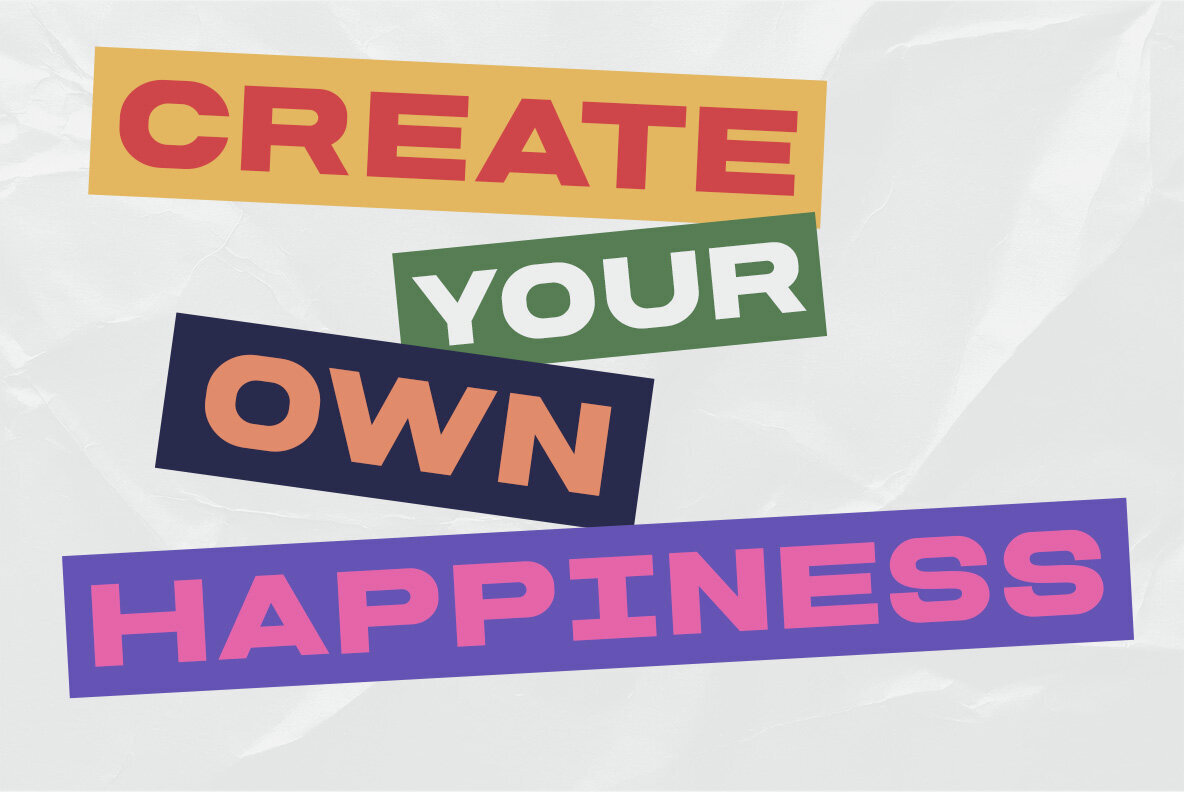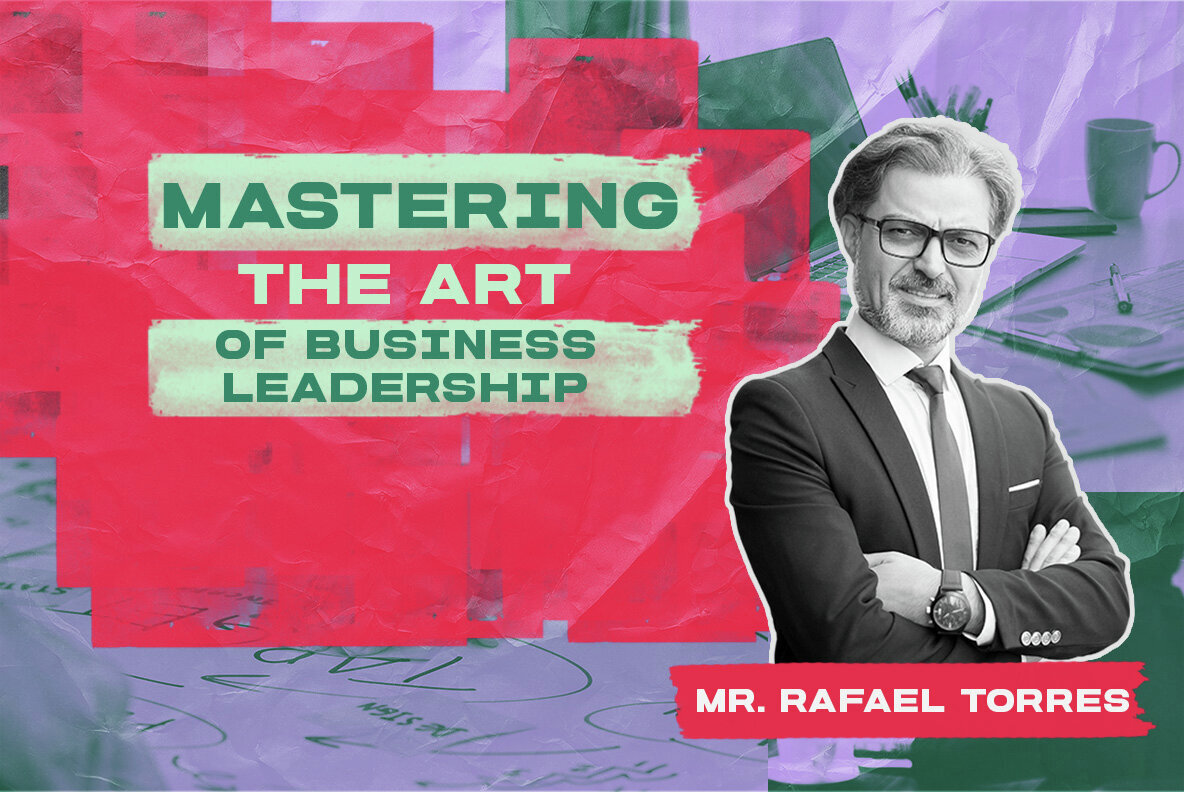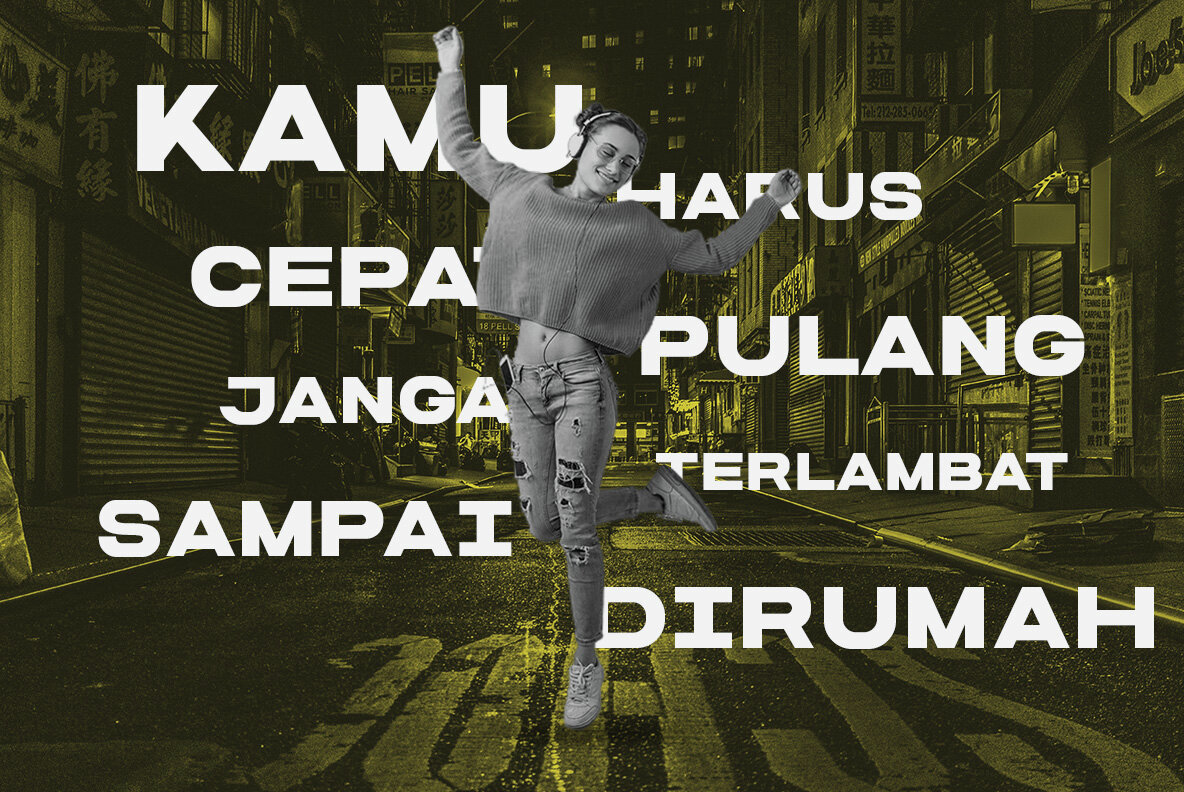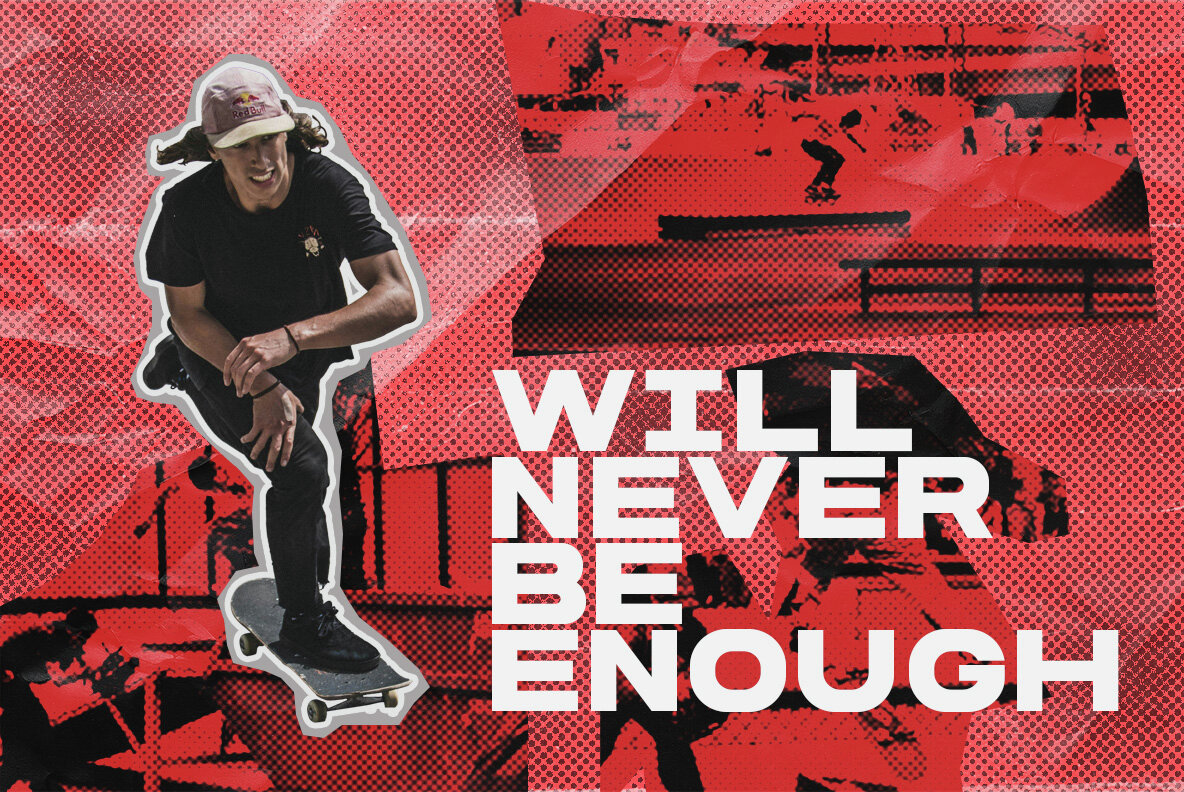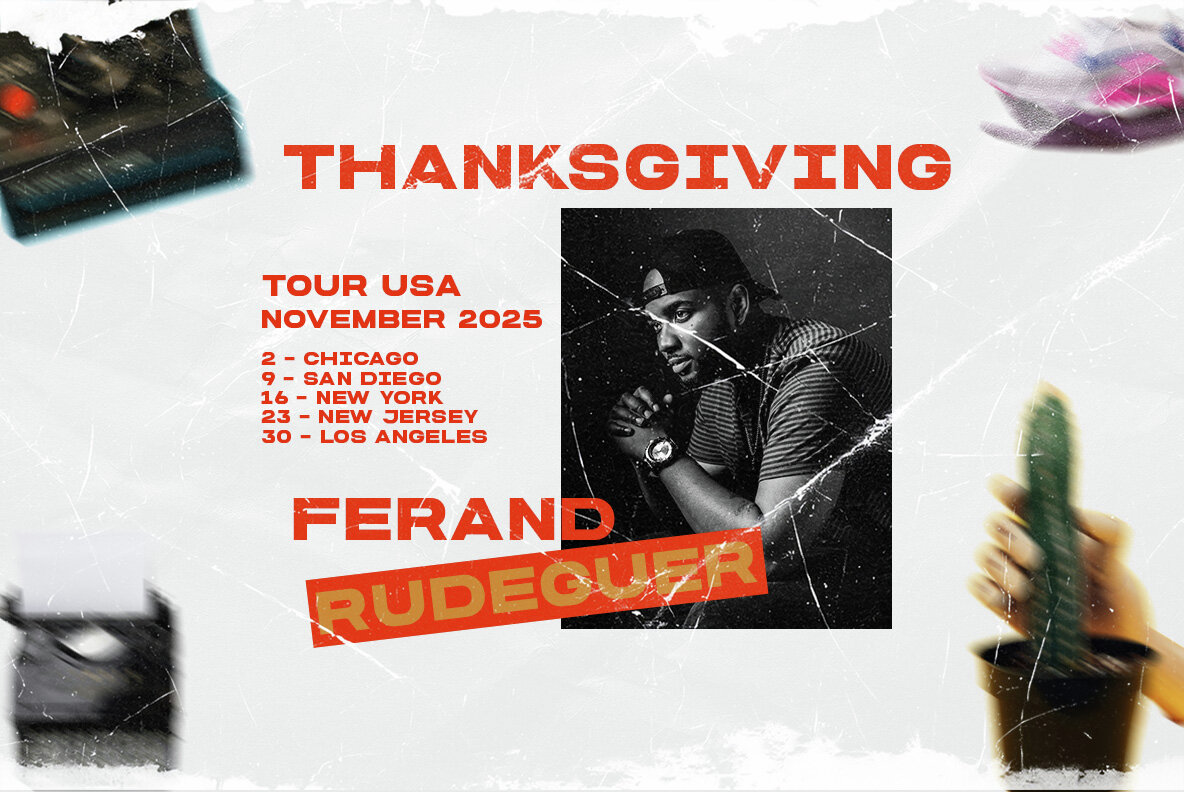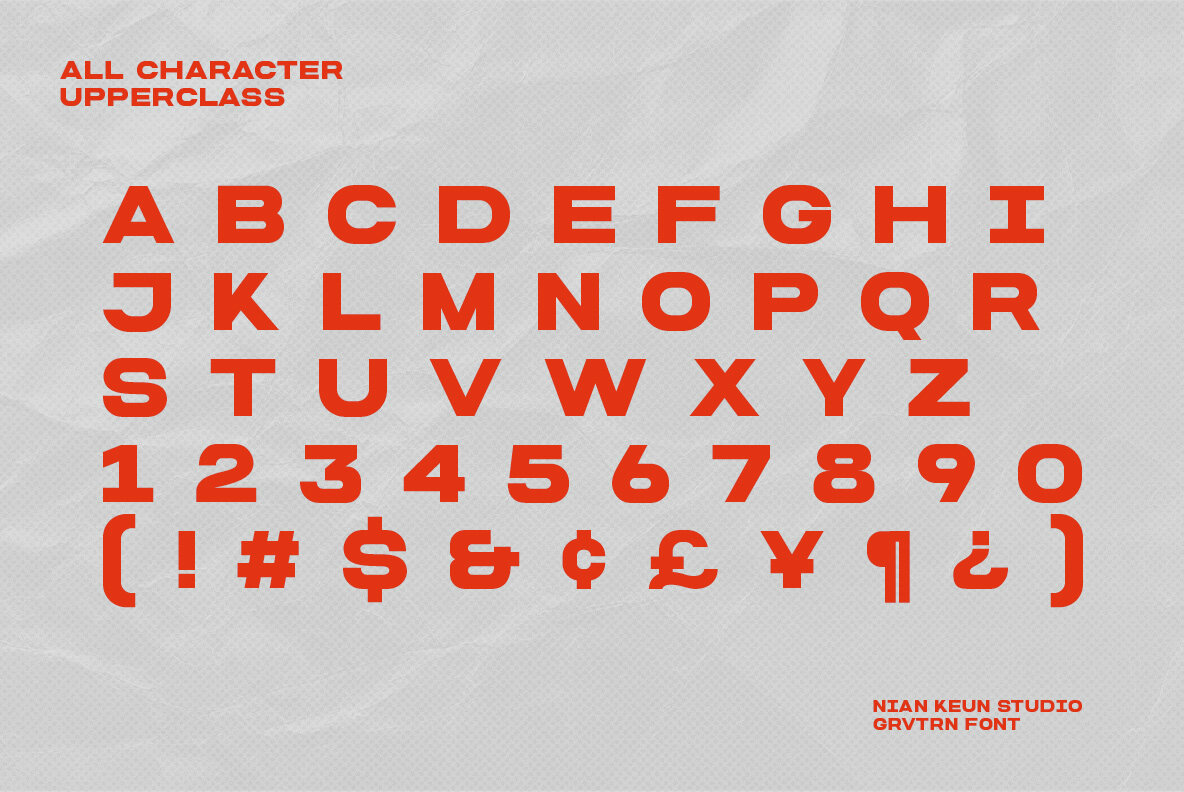
GVTRN Font
Grvtrn
GRVTRN a contemporary extended sans serif font that embodies simplicity with a modern edge. Designed to reflect the popular design trends of 2024, GRVTRN features a clean and straightforward style, characterized by its large, wide, and thick letterforms. This font is all about making a bold statement while maintaining a minimalist appeal. GRVTRN is perfect for projects that require a strong, modern look with a touch of sophistication. Its extended and expanded form creates a sense of openness and clarity, making it ideal for branding, advertising, headlines, digital content, and more. The bold weight and wide proportions of GRVTRN ensure that it stands out, whether in print or on screen. The simplicity of GRVTRN makes it a versatile choice, providing a powerful visual impact without overwhelming the viewer. Its modern aesthetic and strong presence are tailored to meet the needs of today’s designers who are looking for fonts that are both functional and stylish.